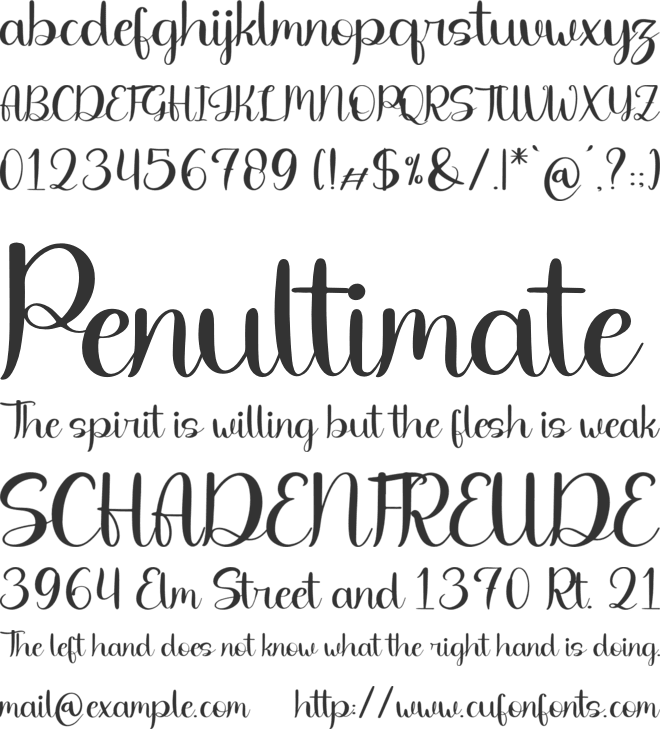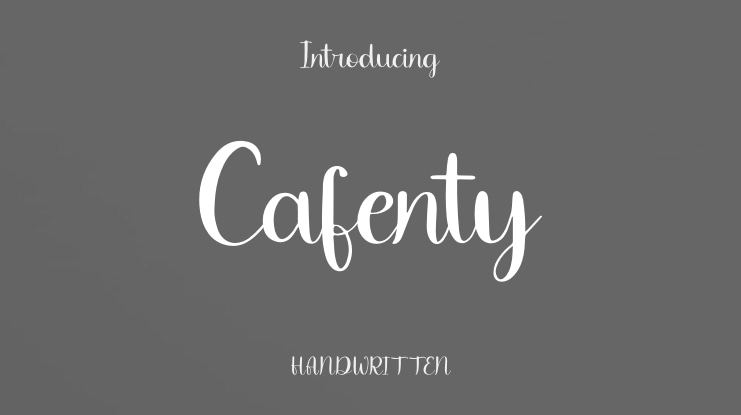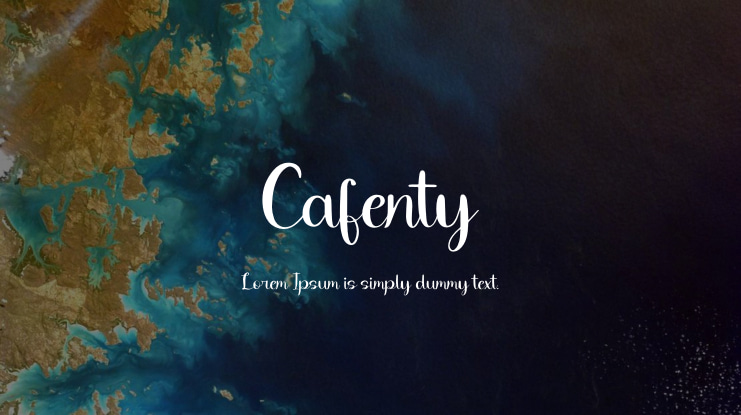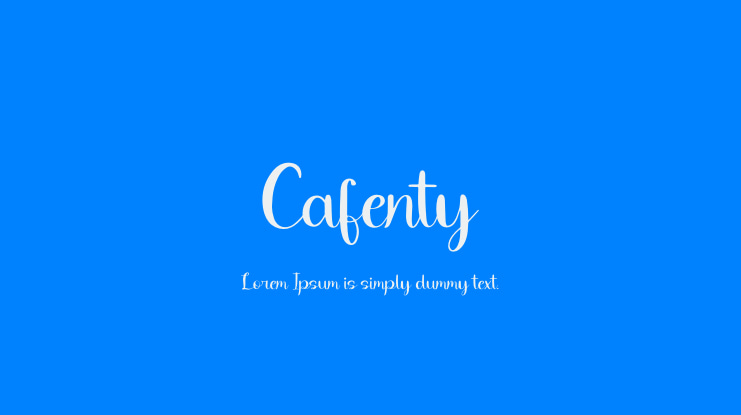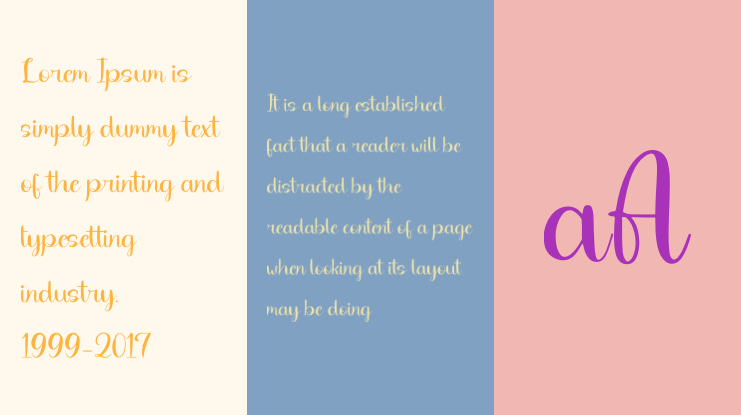
Dede Nugraha
Batelga Modern Handwritten Script is a versatile font suitable for various projects such as logos, branding, homeware designs, packaging, quotes, posters, apparel, book covers, invitations, and more that require an elegant script style.